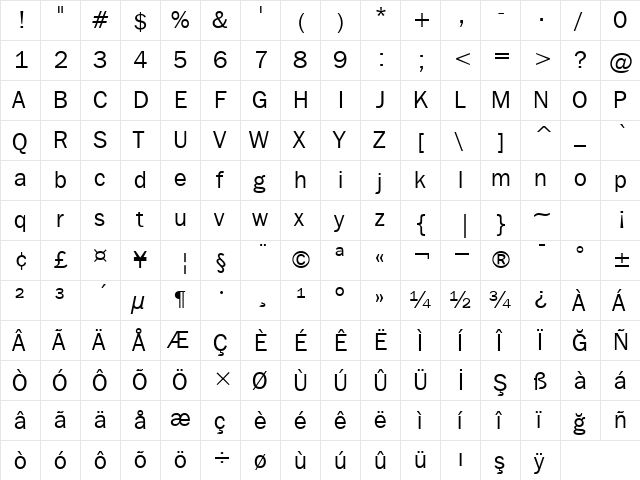
00250 Regular
Design Context for 00250 Typeface
00250 takes a measured approach to typography — its balanced proportions and neutral character make it a reliable workhorse for both digital and print work.